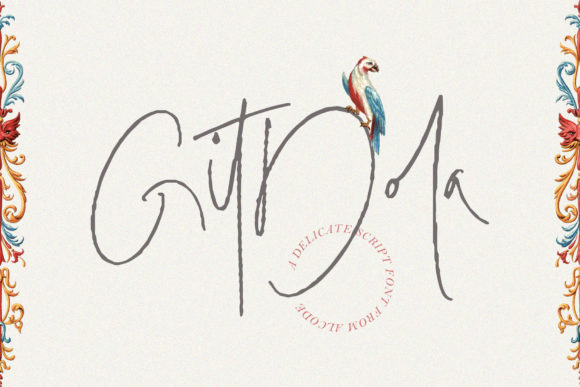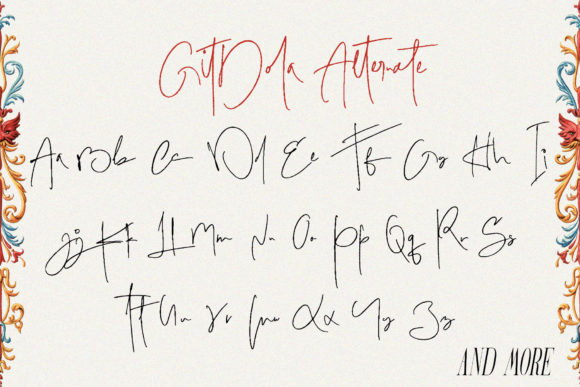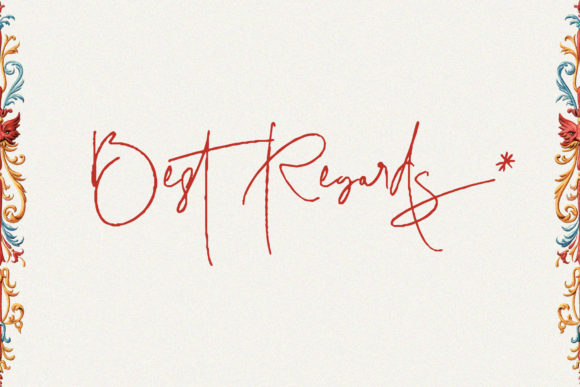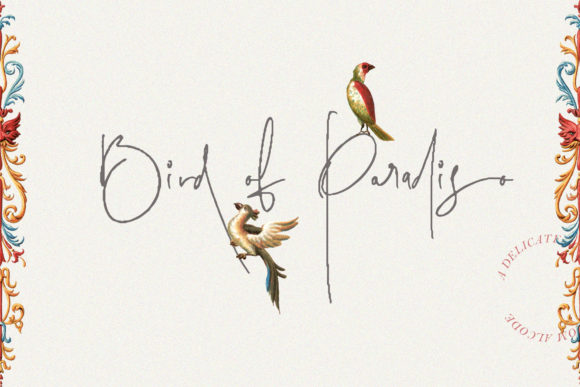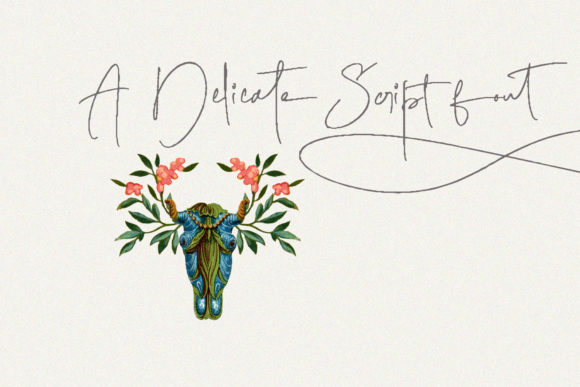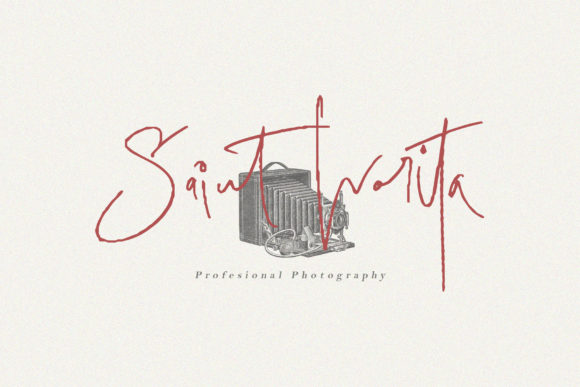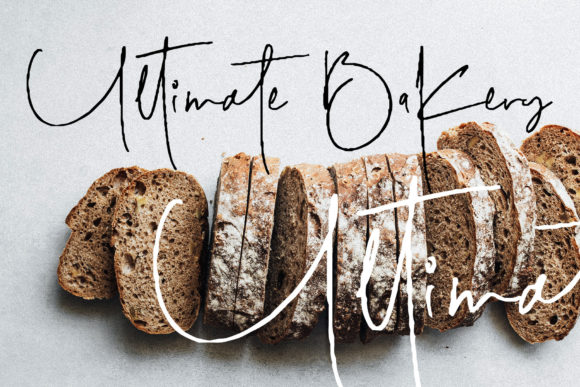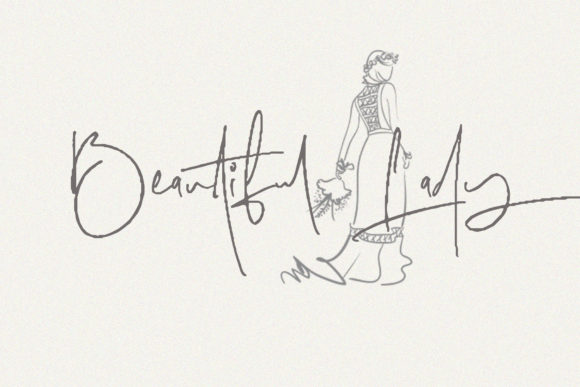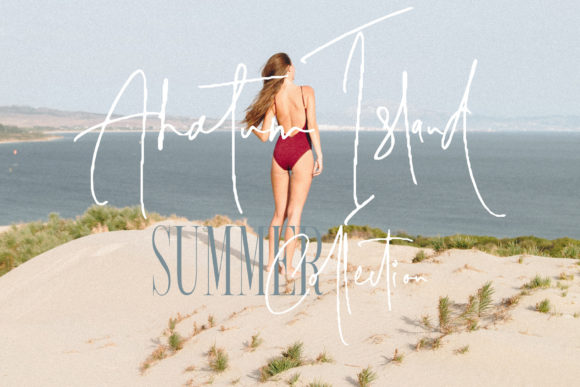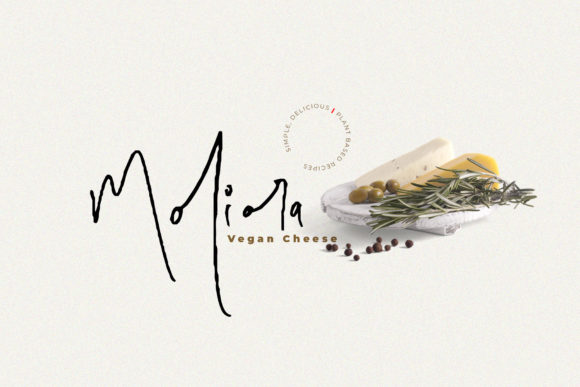
Gitdola Font
About Gitdola Font
Gitdola is a thin lettered and casual handwritten font. It is the best choice for creating eye catching logos, branding and quotes. Gitdola is PUA encoded which means you can access all glyphs and swashes with ease!